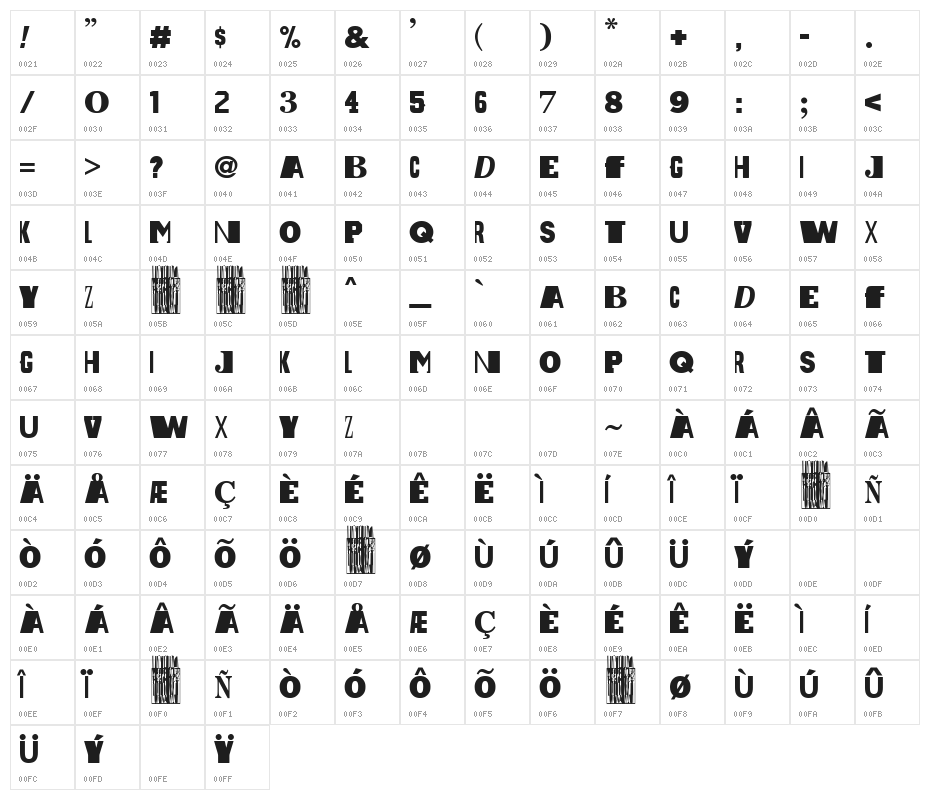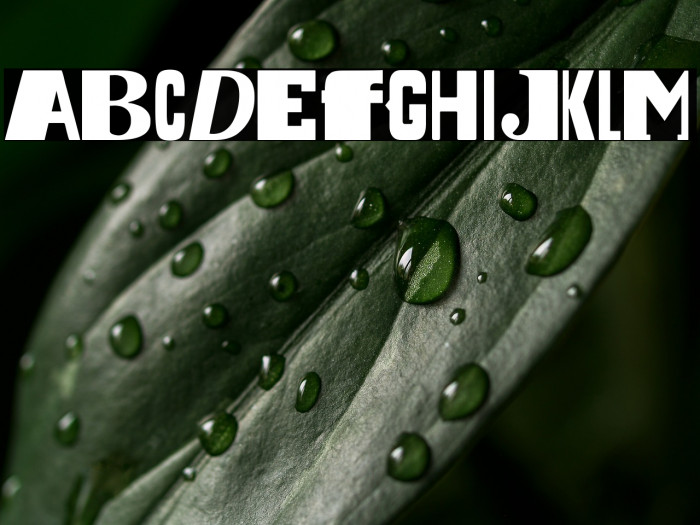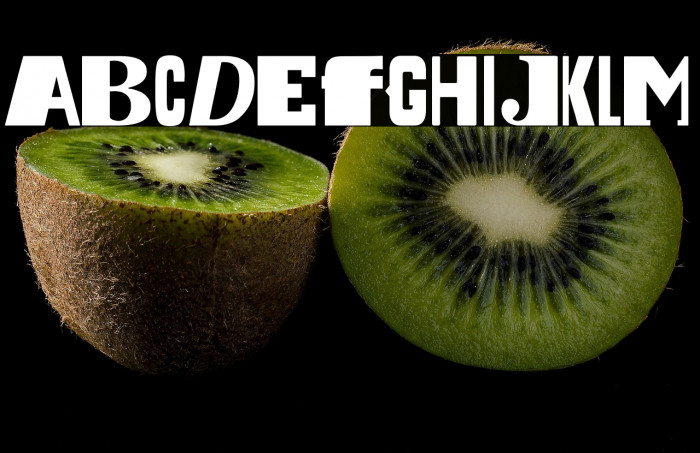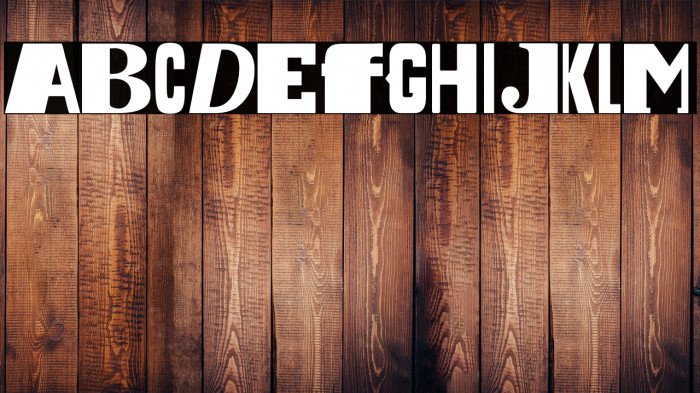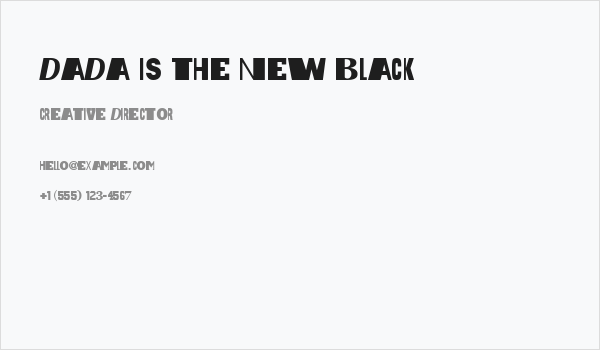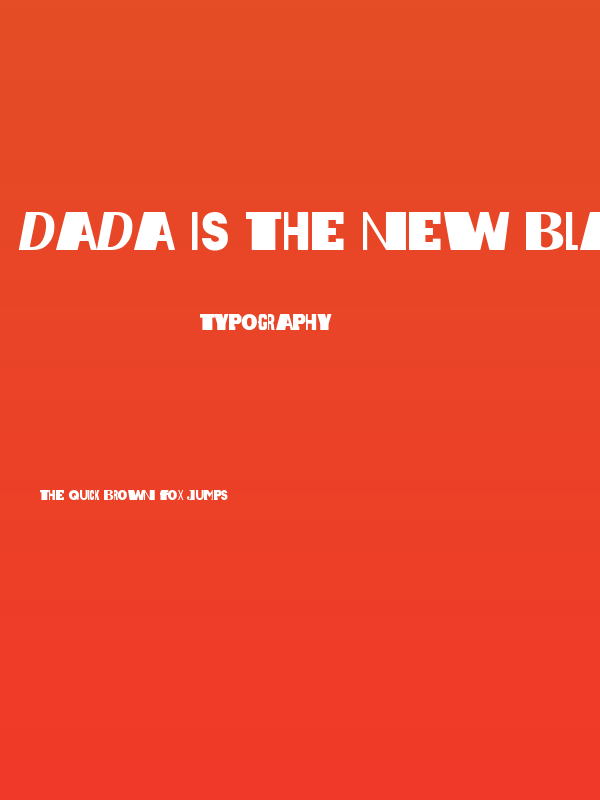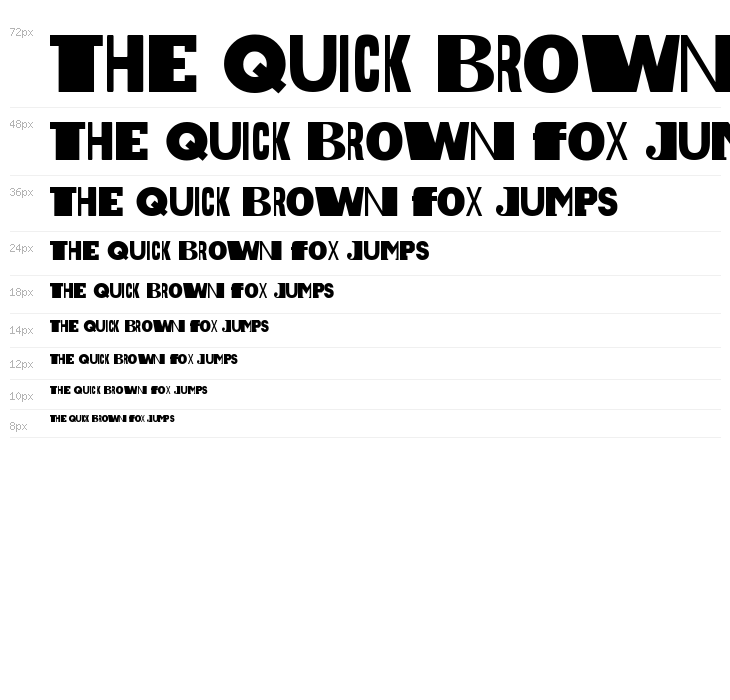
Dada is the new Black Font
This font is a bold and striking display typeface that features a unique blend of geometric and abstract shapes. The uppercase letters are characterized by their thick, blocky forms, with some letters incorporating unexpected angles and curves that add a sense of dynamism and creativity. The lowercase letters maintain a similar boldness, ensuring consistency across the typeface. Numbers and special characters are equally bold, with a playful yet assertive presence. The font's overall style is reminiscent of modern art movements, making it ideal for projects that require a strong visual impact.
Proposed ProjectsIdeal for posters, album covers, branding, and any project that requires a bold, artistic statement.